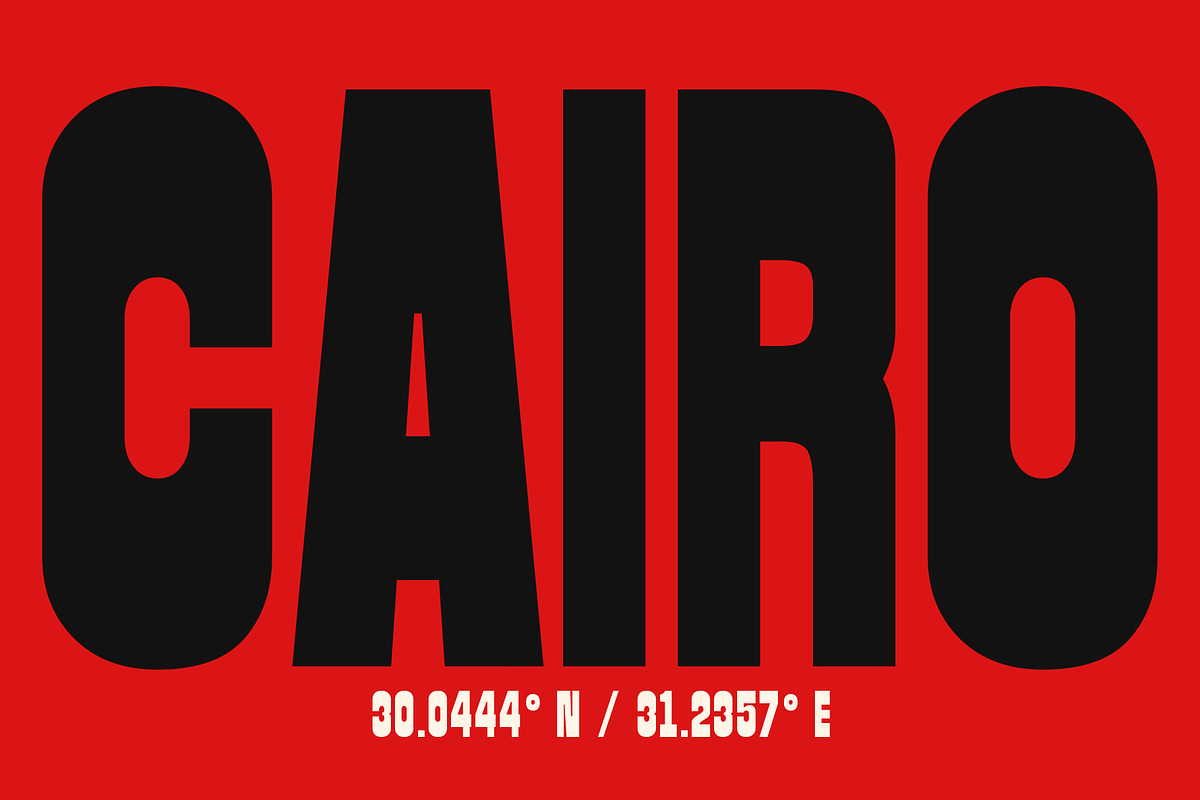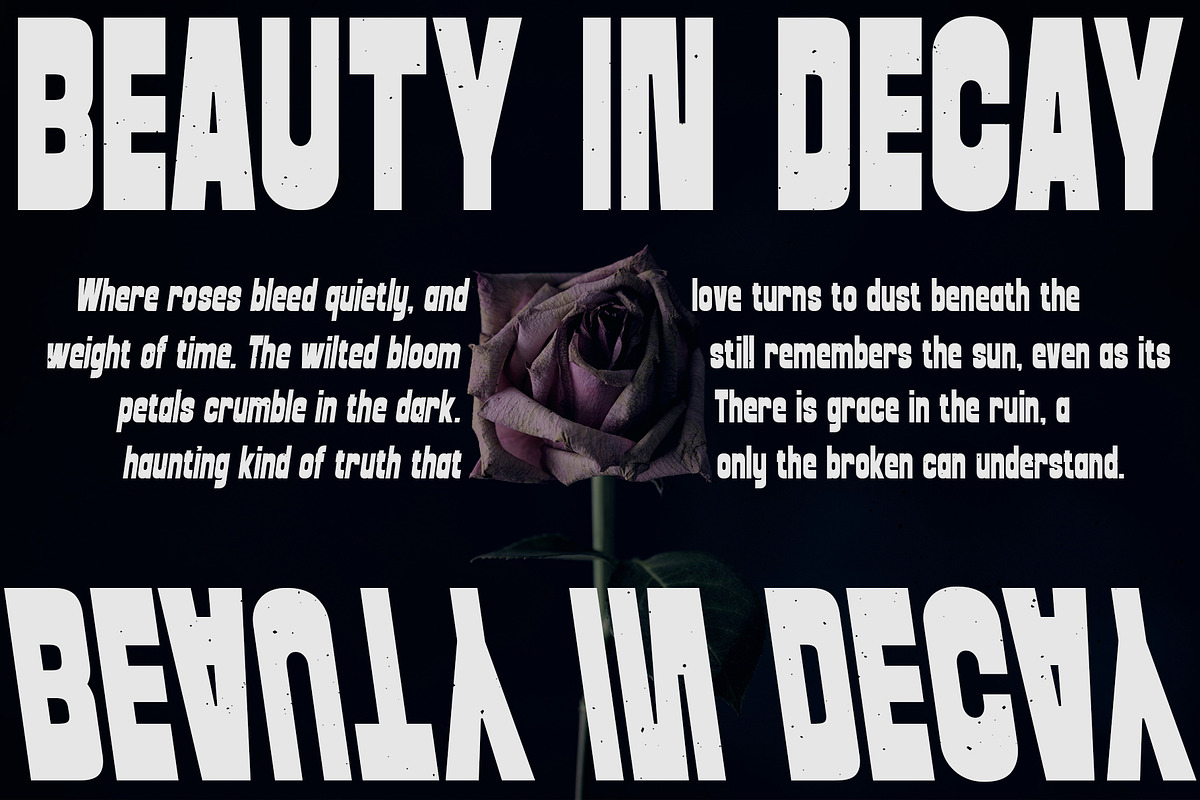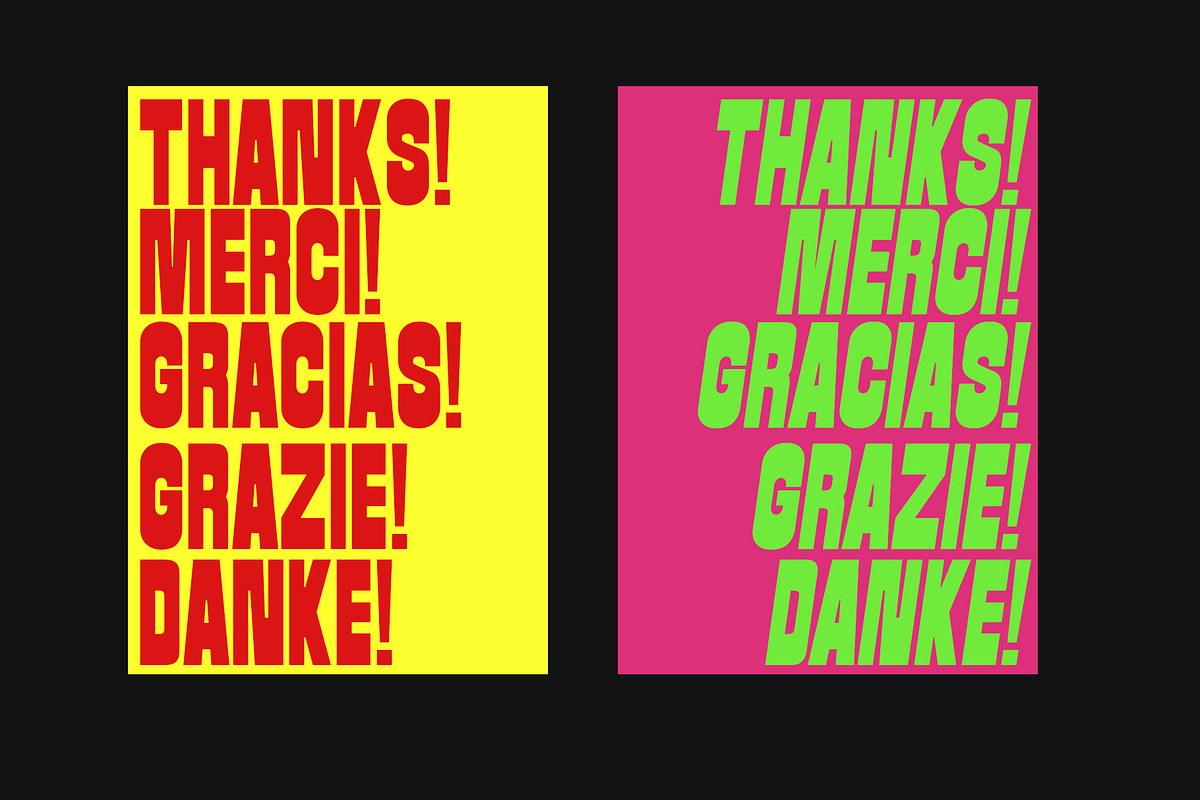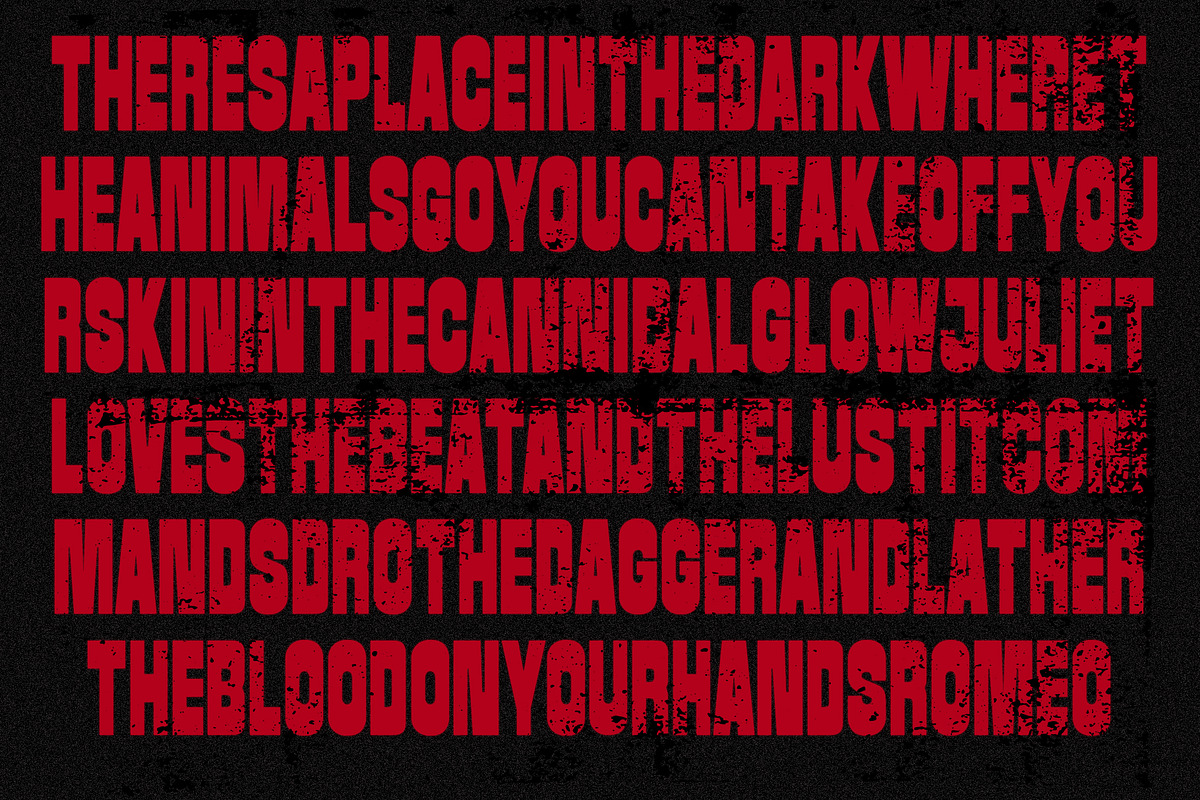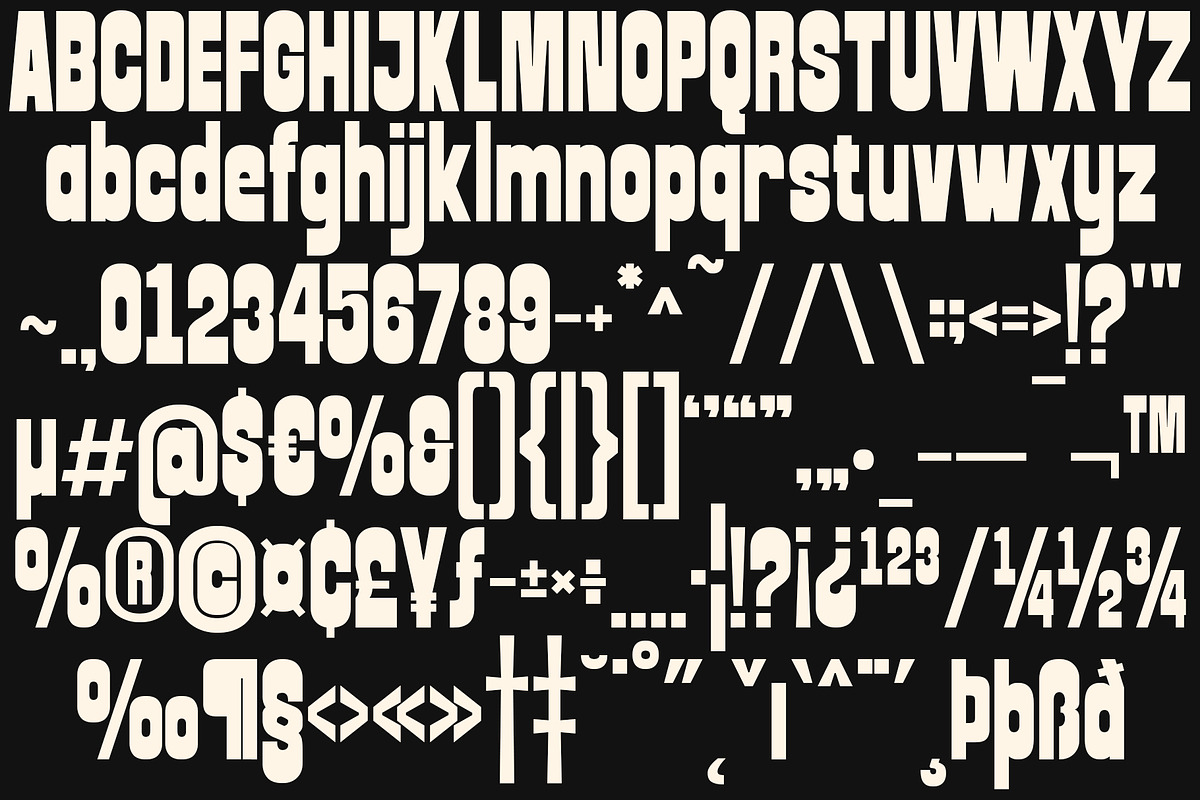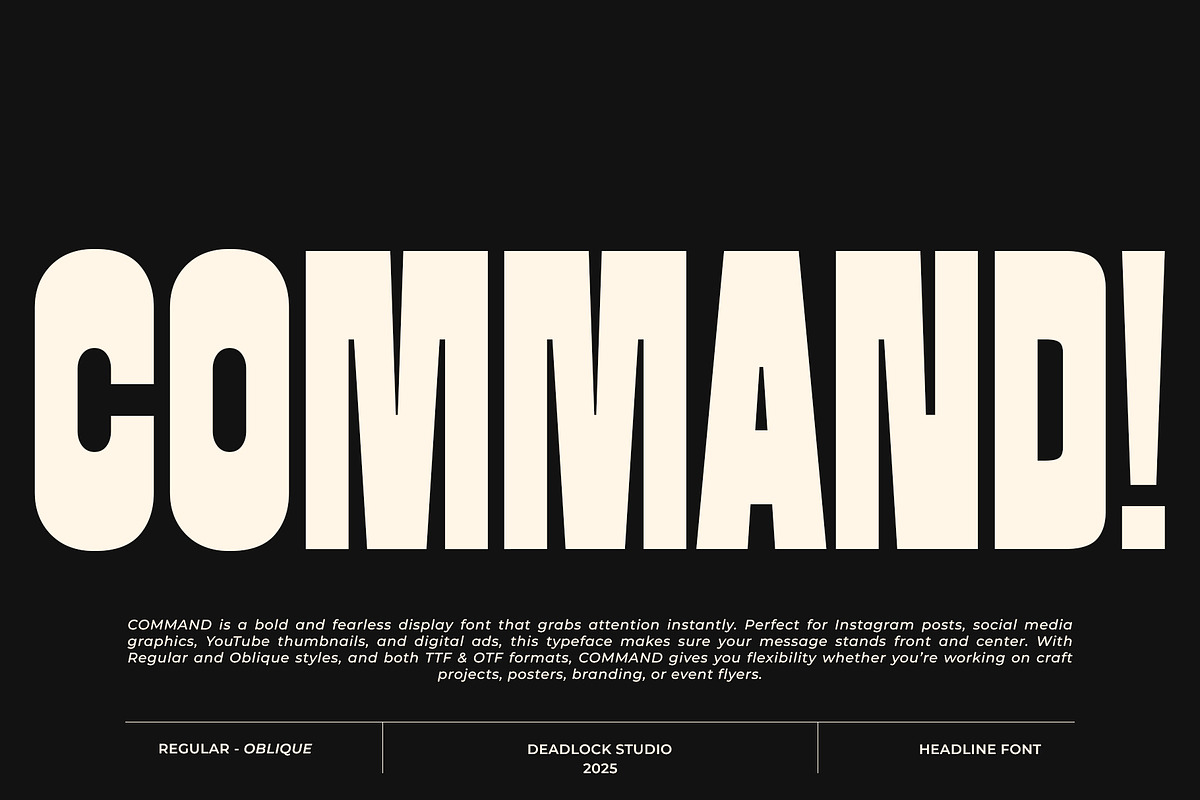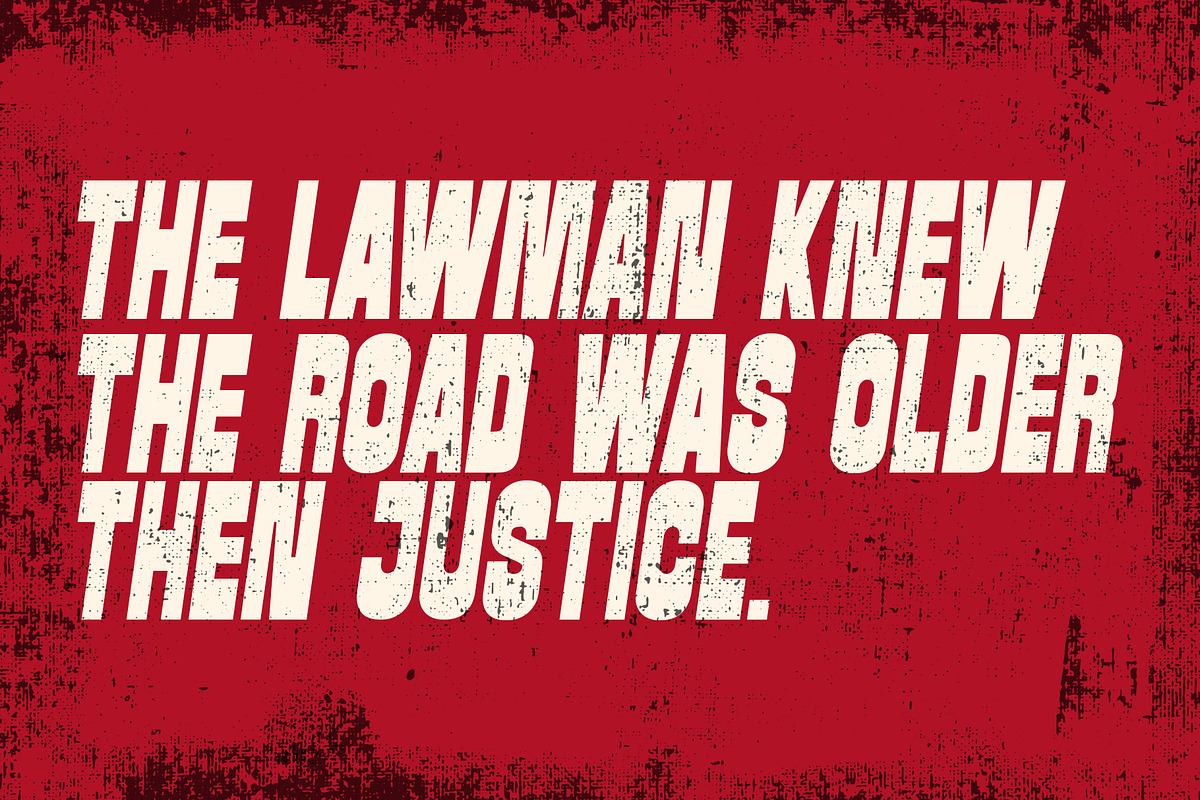
COMMAND! BOLD DISPLAY FONT!
COMMAND is a bold and fearless display font that grabs attention instantly. this typeface makes sure your message stands front and center. With Regular and Oblique styles, and both TTF & OTF formats,
This font also carries a sense of authority and raw energy. perfect for projects that need a fearless, modern edge. The Regular version brings solid stability, while the Oblique adds movement and attitude without losing its power.